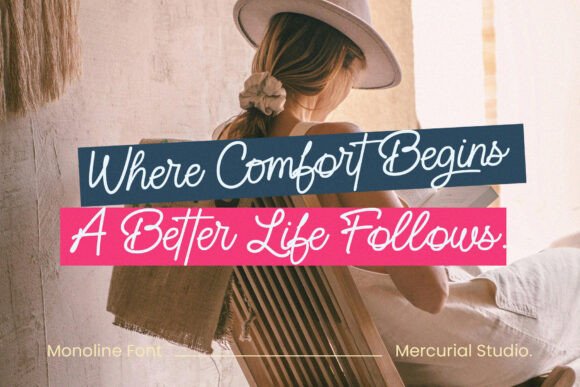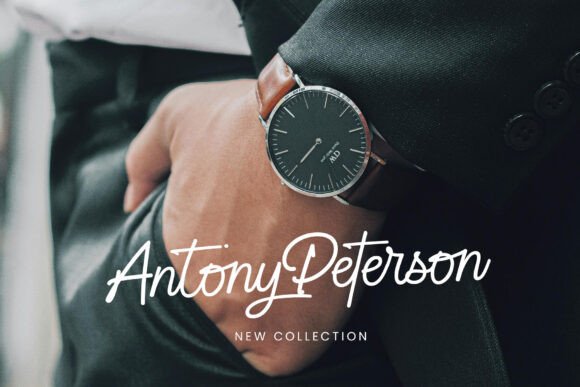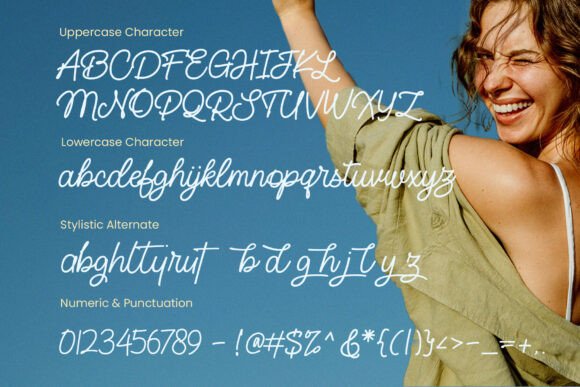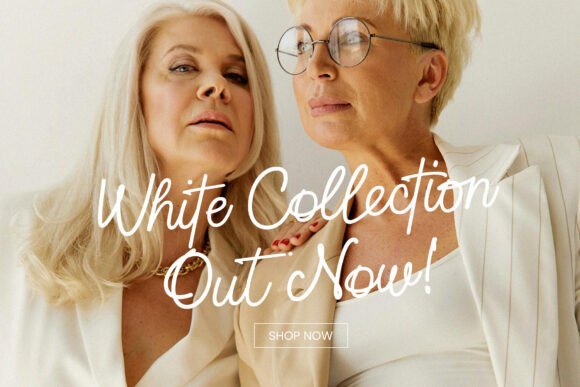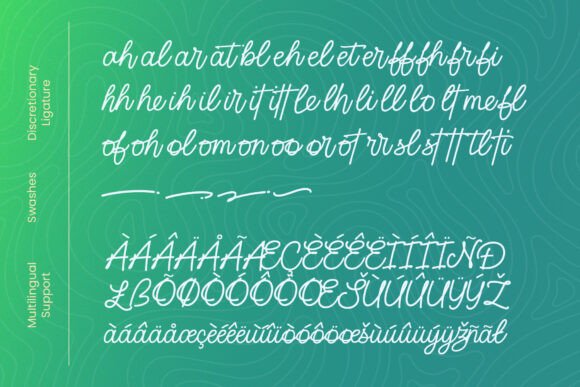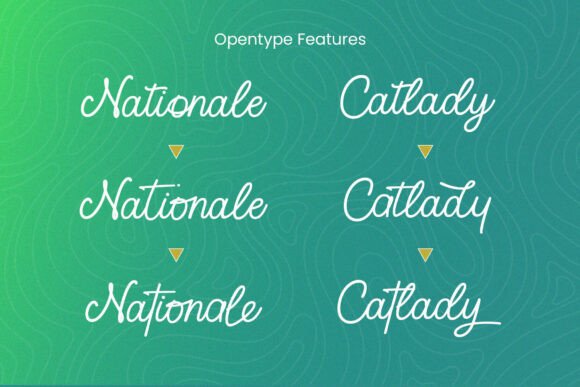
Introduction to Cotieleny Font
Cotieleny is a modern and stylish monoline handwritten font.
Cotieleny can be used for a variety of projects such as branding, labels, photography, invitations, stationery, wedding designs, social media posts, advertising, product packaging, product design, and more .
Key Features of Cotieleny Font